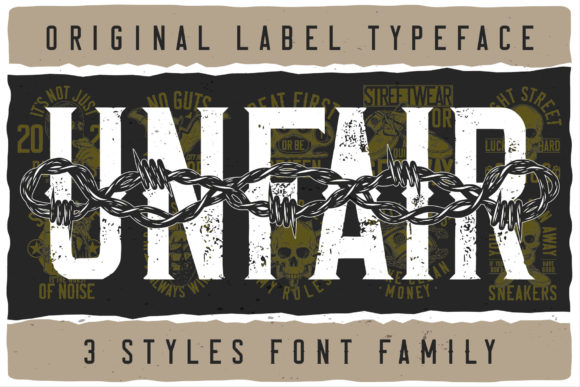
Introducing Unfair Font, the ultimate sans serif font that will take your designs to new heights! Created by the talented team at Vozzy Vintage Fonts And Graphics, Unfair Font is here to revolutionize the way you present your content. Get ready to embark on a creative journey filled with endless possibilities!
Unfair Font is not your average font – it's a masterpiece that oozes uniqueness and charm. With its captivating and eye-catching design, this font will effortlessly grab the attention of anyone who lays eyes on it. Whether you're designing a logo, website, or even a poster, Unfair Font will elevate your creations to a whole new level.
When it comes to versatility, Unfair Font is second to none. Its clean and modern aesthetic makes it perfect for a wide range of projects. From professional presentations to trendy social media graphics, this font is a true game-changer. Say goodbye to boring and predictable typography – Unfair Font is here to make your designs stand out from the crowd.
But what truly sets Unfair Font apart is its ability to evoke emotion. With every curve and stroke, this font tells a story. It captures the essence of elegance, sophistication, and creativity, allowing you to convey your message with impact. Whether you're aiming for a bold and daring look or a subtle and elegant style, Unfair Font will help you achieve the perfect tone.
Unfair Font is more than just a font – it's a tool that empowers you to unleash your creativity. With its extensive character set and multiple weights, you have the freedom to experiment and create something truly unique. Let your imagination run wild as you explore the endless possibilities that Unfair Font has to offer.
Not only does Unfair Font deliver outstanding visual appeal, but it also enhances the readability of your text. Its clean lines and well-balanced proportions ensure that your message is easily understood by your audience. Whether you're designing for print or web, Unfair Font guarantees a seamless reading experience.